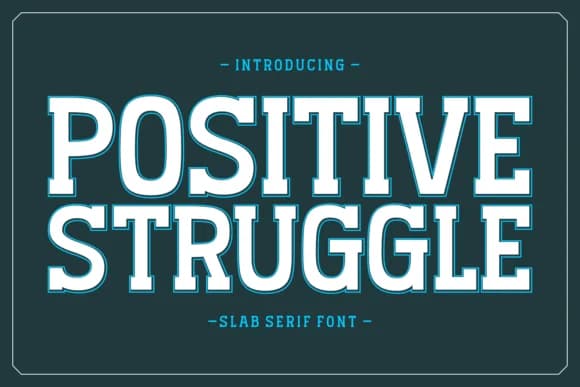
About Positive Struggle Font
Positive Struggle by Hendrik is a slab serif that finds the sweet spot between retro character and contemporary sensibility. The typeface carries enough visual weight to command headlines while maintaining the sophistication to work beautifully on smaller, single-word applications. Its lean proportions give it a clean modern feel without sacrificing the heft that makes slab serifs so effective for display work. That balance is what makes it a genuinely versatile tool across different projects and scales, from intimate compositions to larger installations.
It excels in branding work where you need letterforms that feel distinctive without tipping into novelty or gimmick. Movie title treatments gain real punch from its geometric confidence, while festival posters and album art packaging benefit from its ability to hold space in dense, information-heavy layouts. For product and apparel work, it brings authoritative presence to t-shirt graphics and tumbler designs alike. You'll see the same strength on greeting card suites, book covers, and wall installations, where the sturdy serifs add character and depth to every application without overwhelming what surrounds them.
- Sturdy, Confident, Positive Struggle
Positive Struggle Font is a slab serif font that shines as a display or heading face. Pair it with a clean sans-serif or serif font for body text β the contrast creates a clear hierarchy while the two styles stay balanced and easy to read.
Positive Struggle Font